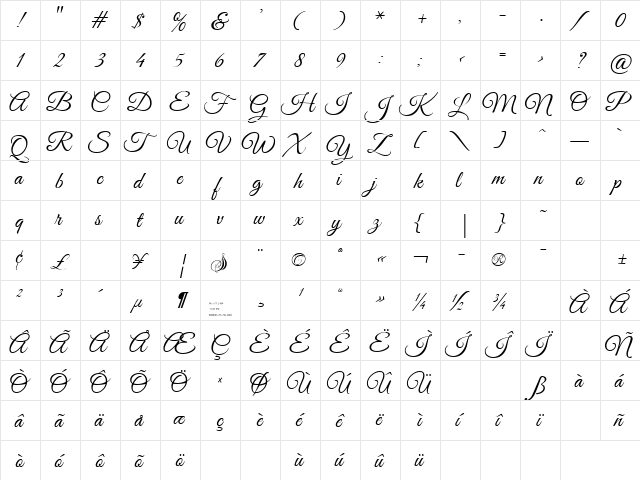
GoodVibrations Script
| Style | Script |
Design Context for GoodVibrations Typeface
GoodVibrations brings a calligraphic fluidity to the page — its connecting strokes and expressive curves give it an unmistakably human quality.
Font Pairing: Combine GoodVibrations with a simple geometric sans for maximum contrast — the tension between flowing curves and clean structure is a classic typographic pairing.
Pro Tip: Use GoodVibrations for short runs of text — names, titles, or taglines. Extended body copy in script faces tires the eye quickly.